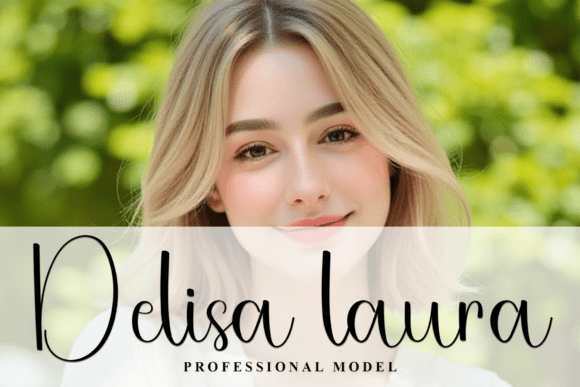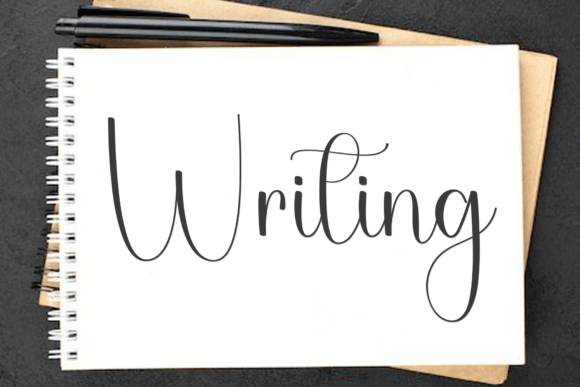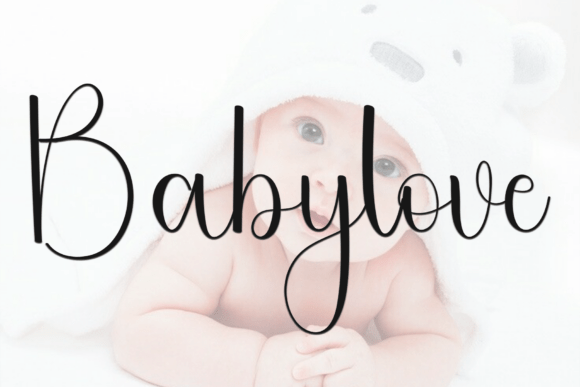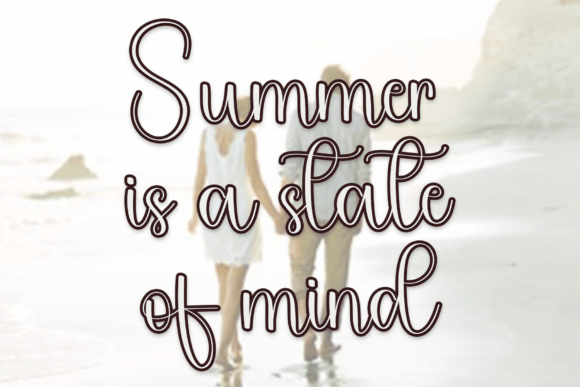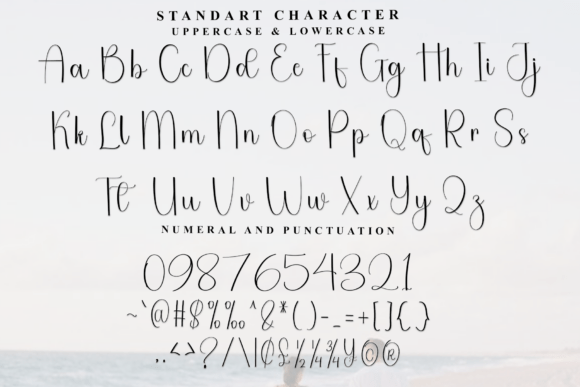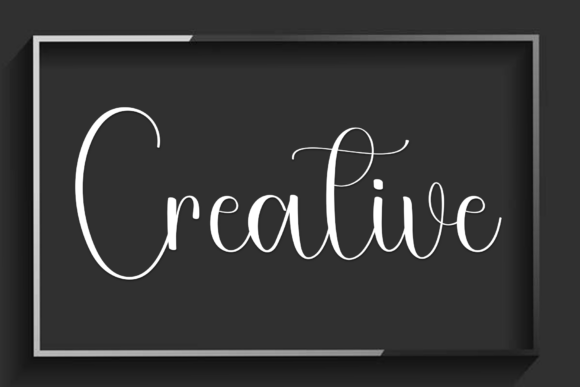
Introducing Backline Font: The Ultimate Holiday Typeface
The holiday season is upon us, and what better way to get into the spirit than with a festive and merry typeface? Look no further than Backline Font, a decorative and whimsical font that’s perfect for adding a touch of enchantment to your designs. In this article, we’ll dive into the world of Backline Font and explore its features, uses, and benefits for designers and crafters.
Backline Font is a unique and eye-catching typeface that captures the essence of the holiday season. Its decorative elements and whimsical flair make it an ideal choice for creating festive and fun designs. Whether you’re working on greeting cards, gift tags, or holiday-themed projects, Backline Font is sure to bring a cheerful and nostalgic ambiance to your words.
Backline Font is specifically designed for holiday-themed projects, making it a must-have for designers and crafters who want to create unique and festive designs. With its playful and decorative style, it’s perfect for:
- Greeting cards: Create personalized and festive greeting cards for friends and family.
- Gift tags: Add a touch of magic to your gift tags and make them stand out.
- Holiday-themed projects: Use Backline Font to create festive and fun designs for holiday-themed projects, such as party invitations, decorations, and more.
One of the best features of Backline Font is that it’s PUA (Private Use Area) encoded, which means you can access all of the amazing glyphs and ligatures with ease. This makes it easy to use the font and get creative with your designs. With PUA encoding, you can:
- Easily access alternative characters and glyphs.
- Create unique and customized designs.
- Save time and effort when working on projects.
Backline Font offers a range of benefits for designers and crafters, including:
- Unique and eye-catching designs: Stand out from the crowd with Backline Font’s decorative and whimsical style.
- Easy to use: With PUA encoding, you can easily access all of the font’s features and glyphs.
- Time-saving: Create festive and fun designs quickly and easily with Backline Font.
- Customization: Use the font’s alternative characters and glyphs to create unique and customized designs.
Tips and Tricks for Using Backline Font
Here are some tips and tricks for getting the most out of Backline Font:
- Use the font’s glyphs and ligatures to create unique and customized designs.
- Pair Backline Font with other fonts to create a unique and eye-catching combination.
- Use the font for non-holiday projects, such as packaging or branding, to add a touch of whimsy and fun.